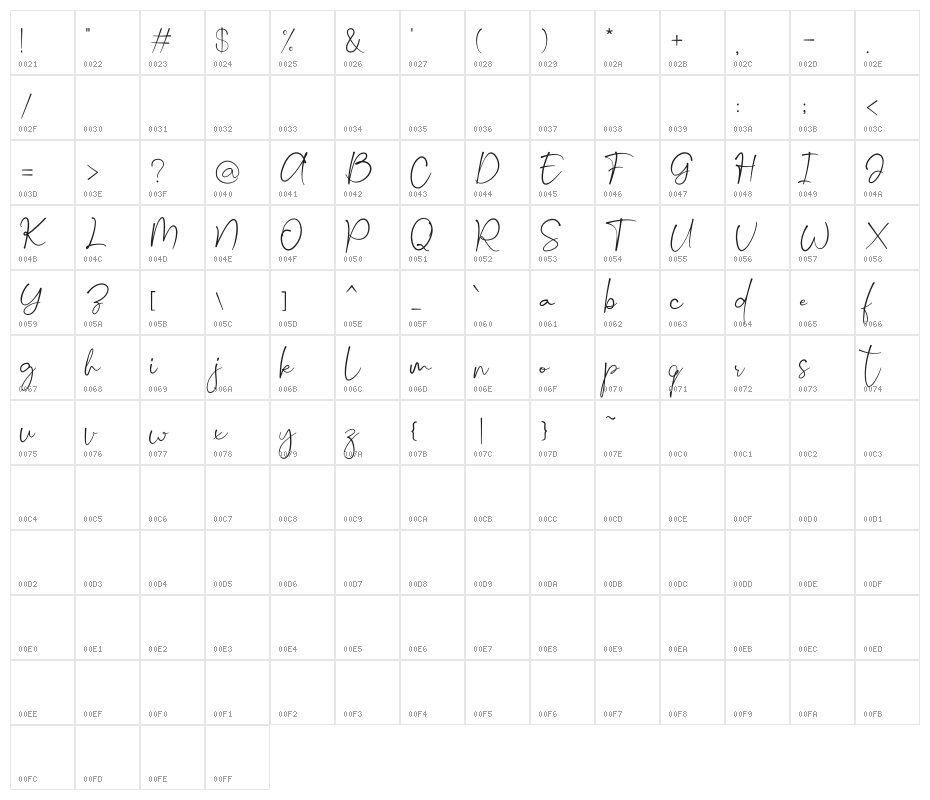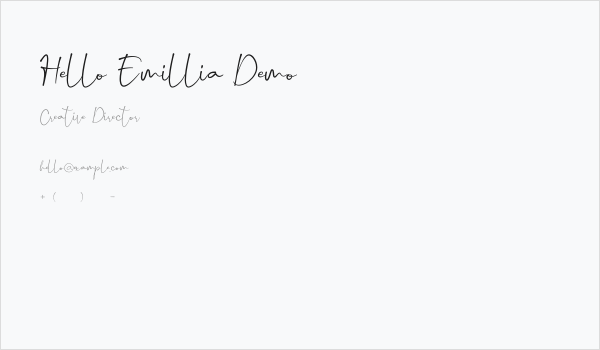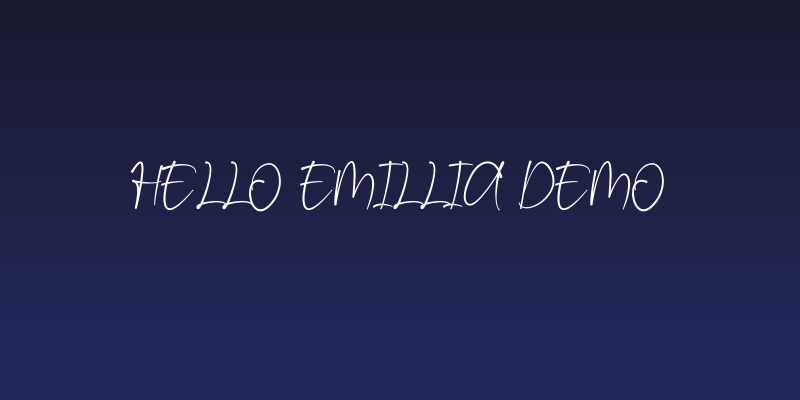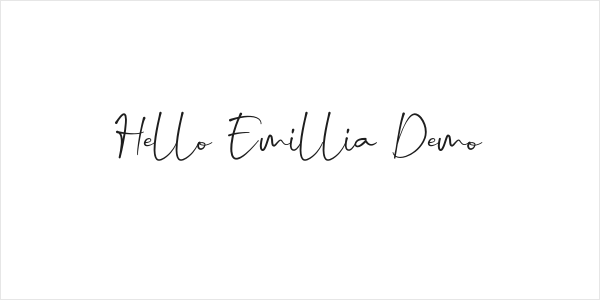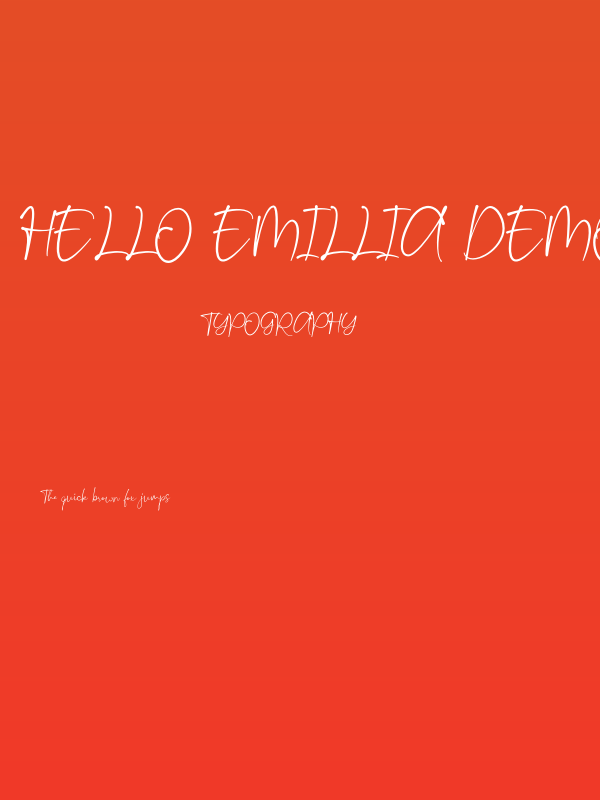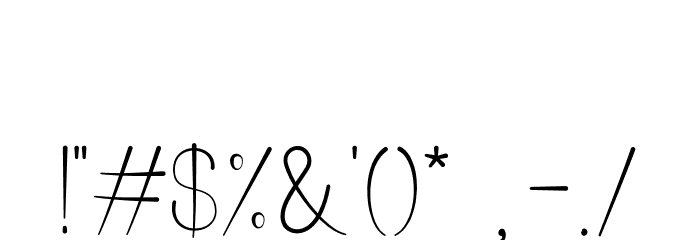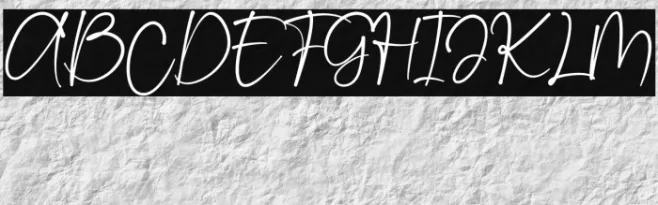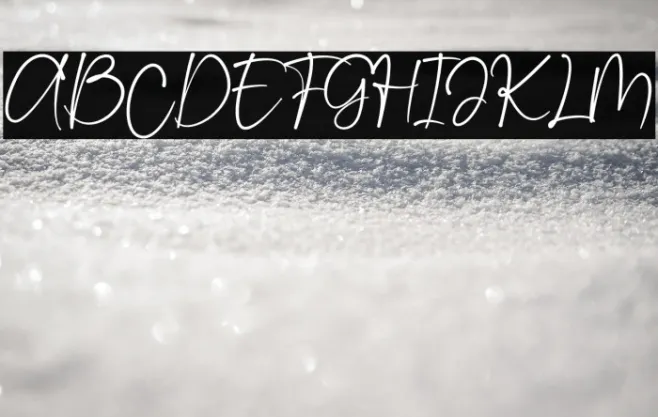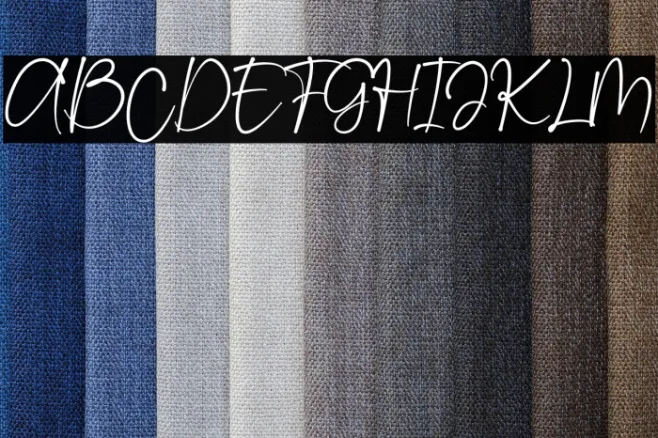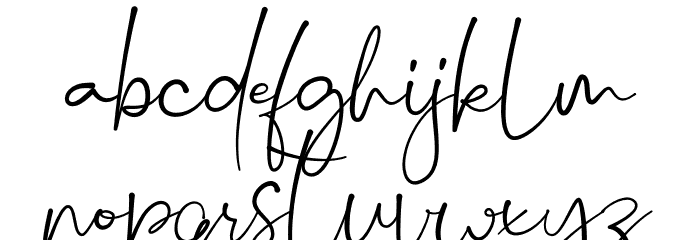
Hello Emillia Demo Font
Hello Emillia Demo Description
This font features a flowing, cursive style with a modern twist. The letters are elegantly connected, creating a seamless and fluid appearance. The uppercase characters are tall and slender, with a slight slant that adds to their graceful look. The lowercase letters maintain a consistent style, with loops and curves that enhance the font's handwritten feel. The numbers and special characters are designed to match the overall aesthetic, providing a cohesive look across all elements. This font's unique style makes it suitable for creative and artistic projects, adding a personal touch to any design.